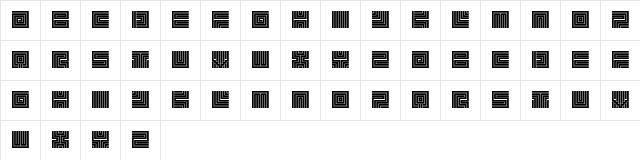
stuckattwo_demo1 Regular Free Font
stuckattwo_demo1 Regular
Design Context for stuckattwo_demo1
stuckattwo_demo1 is a composed and adaptable typeface that performs quietly and consistently across a wide range of design contexts.